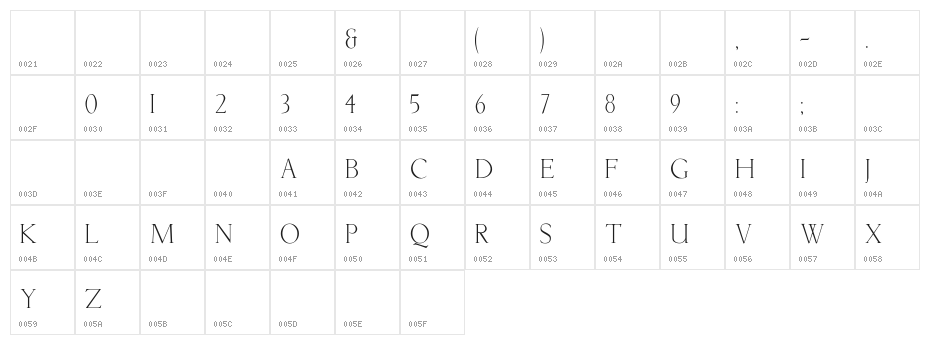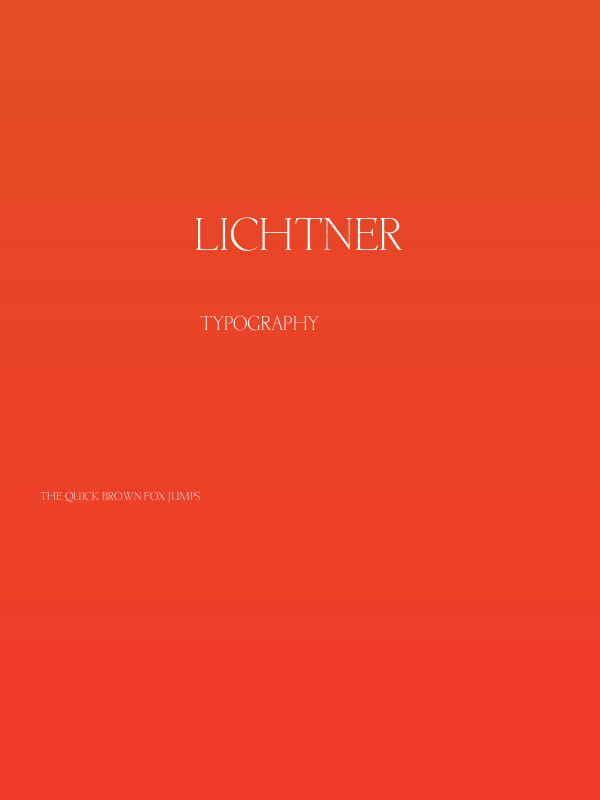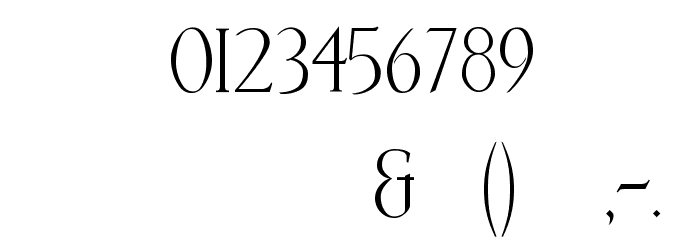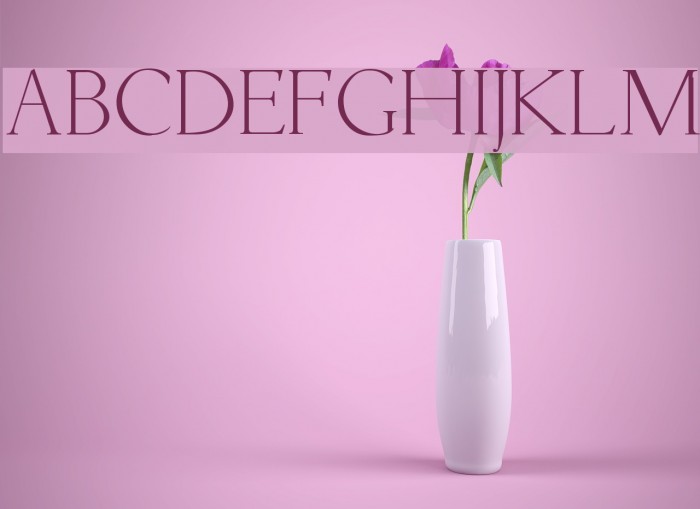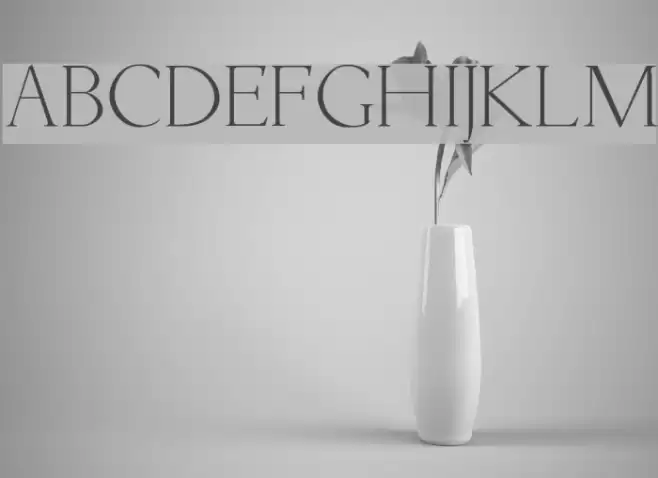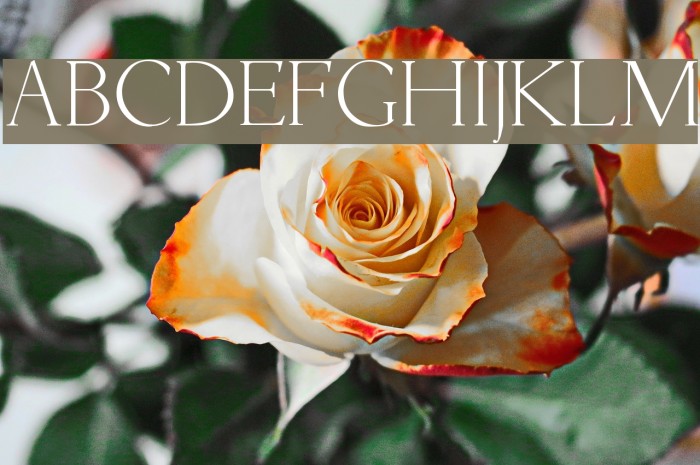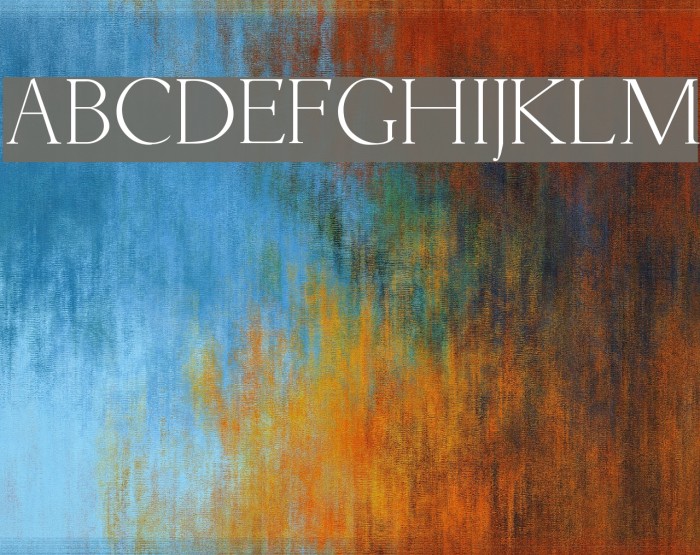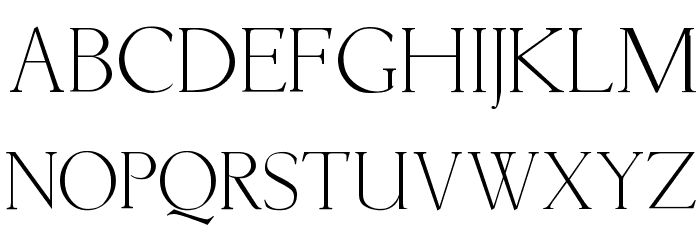
Lichtner Font
Lichtner Description
This font features a classic serif style with elegant, thin strokes and high contrast between thick and thin lines. The characters are designed with a refined and sophisticated appearance, making them suitable for formal and elegant designs. The uppercase letters are tall and stately, while the lowercase letters maintain a consistent style with slightly rounded edges. The numerals are clear and easy to read, complementing the overall aesthetic. Special characters are included, adding versatility to the font's use. The design is both timeless and modern, making it adaptable to various design needs.
| Overall Style | Classic |
| Use Case | Headlines, Logos, Editorial design |
| Proposed Projects | Ideal for use in luxury branding, editorial design, wedding invitations, and high-end product packaging. |